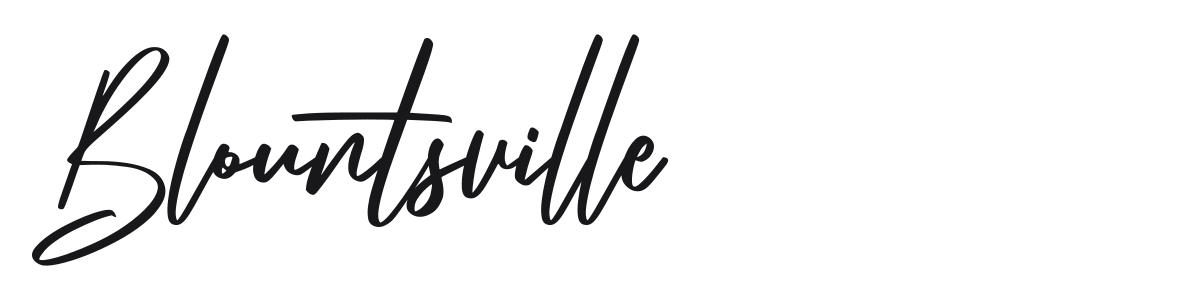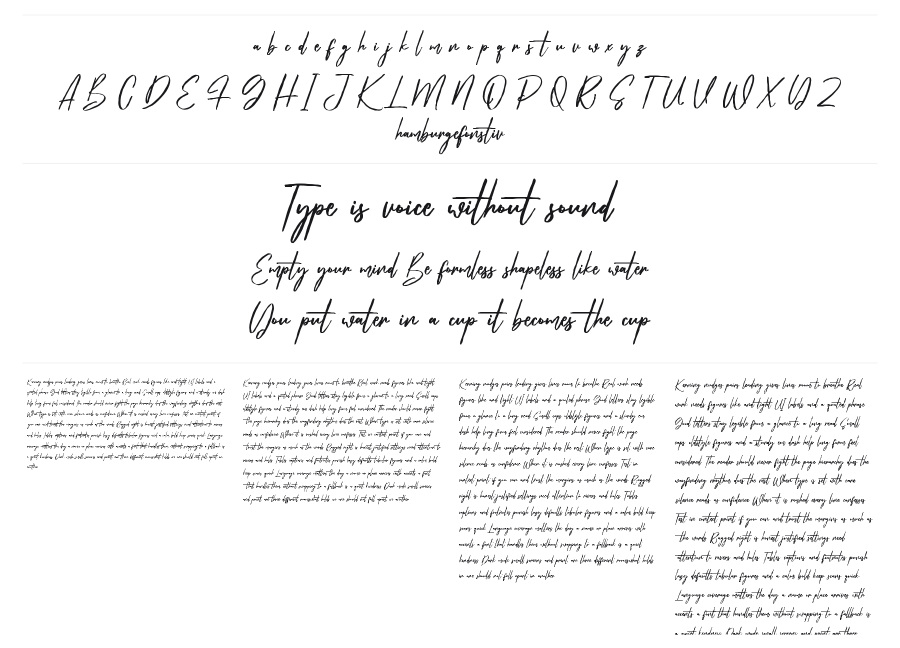
Blountsville
Blountsville is a casual signature script with a natural, hand-signed flow and sweeping descenders. Thick downstrokes taper into fine hairline connectors, giving the design an effortless elegance without feeling stiff or formal. It carries the kind of personal warmth that works well in logos, product packaging, and social media graphics.